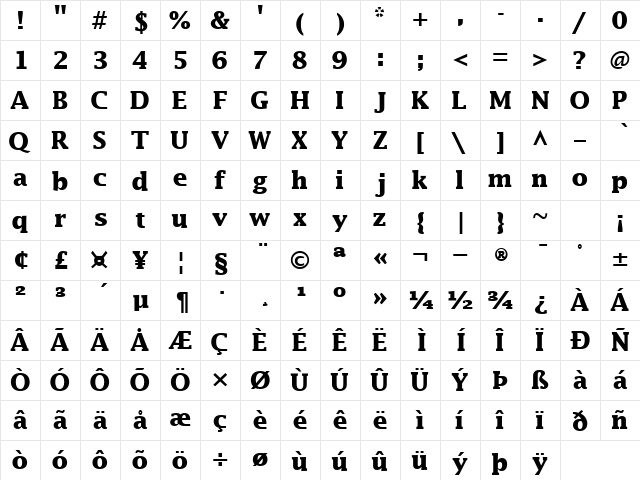
MachadoSSK Bold
Design Context for MachadoSSK Typeface
MachadoSSK is a composed and adaptable typeface that performs quietly and consistently across a wide range of design contexts. Its bold stroke weight gives it real presence on the page.